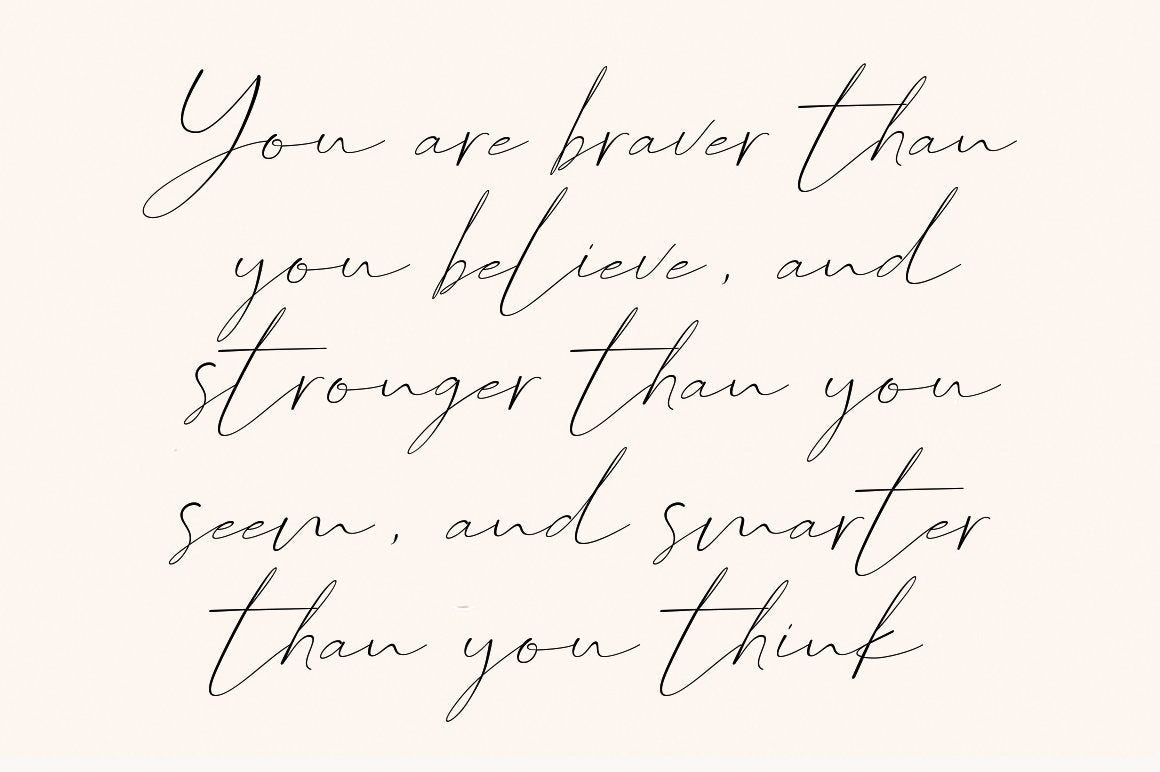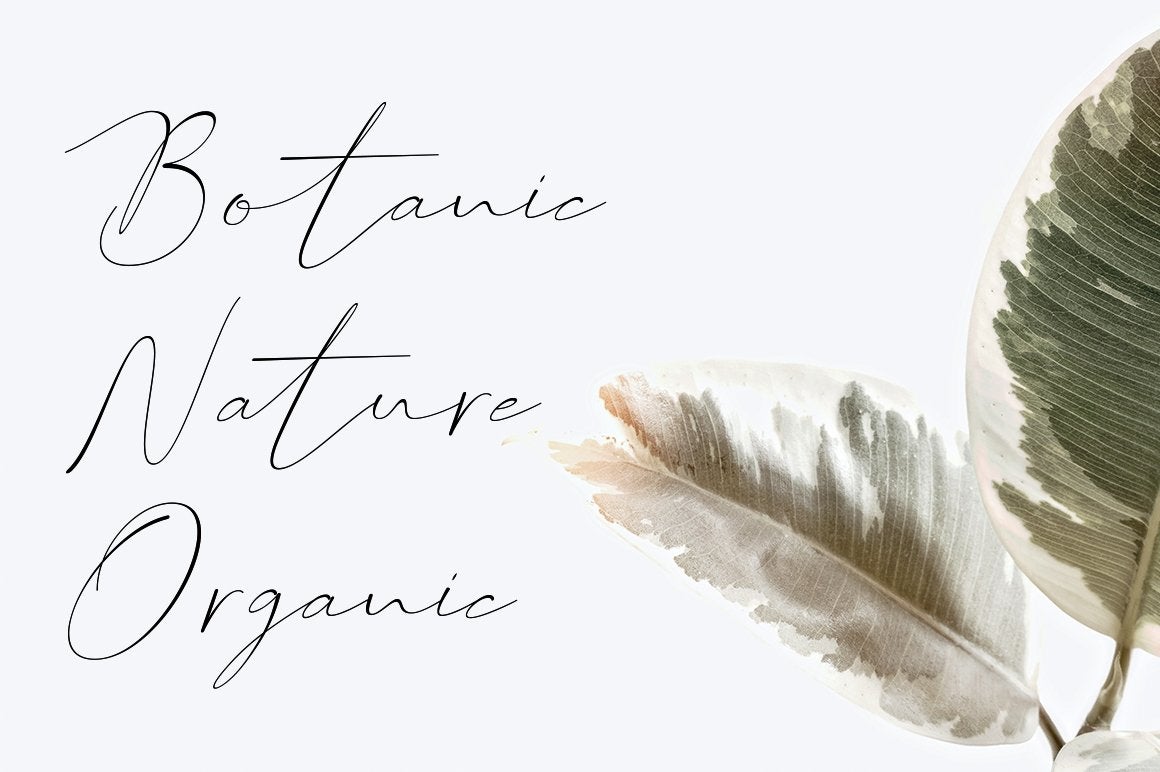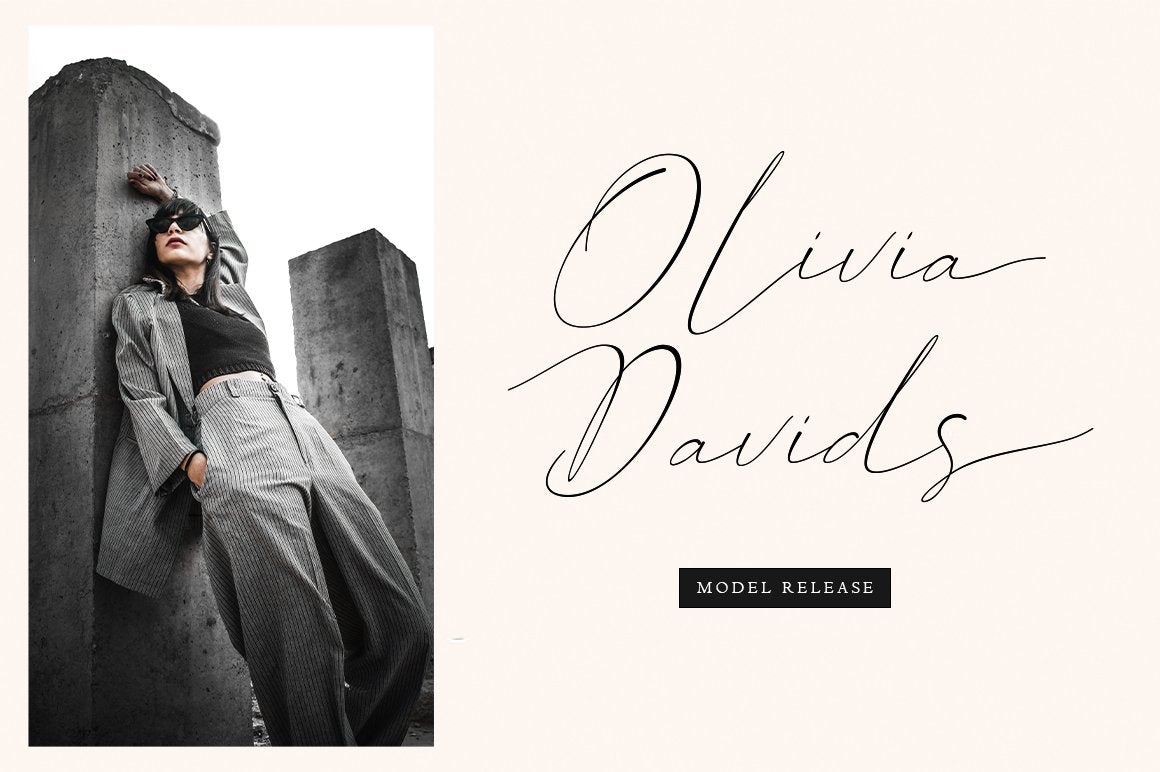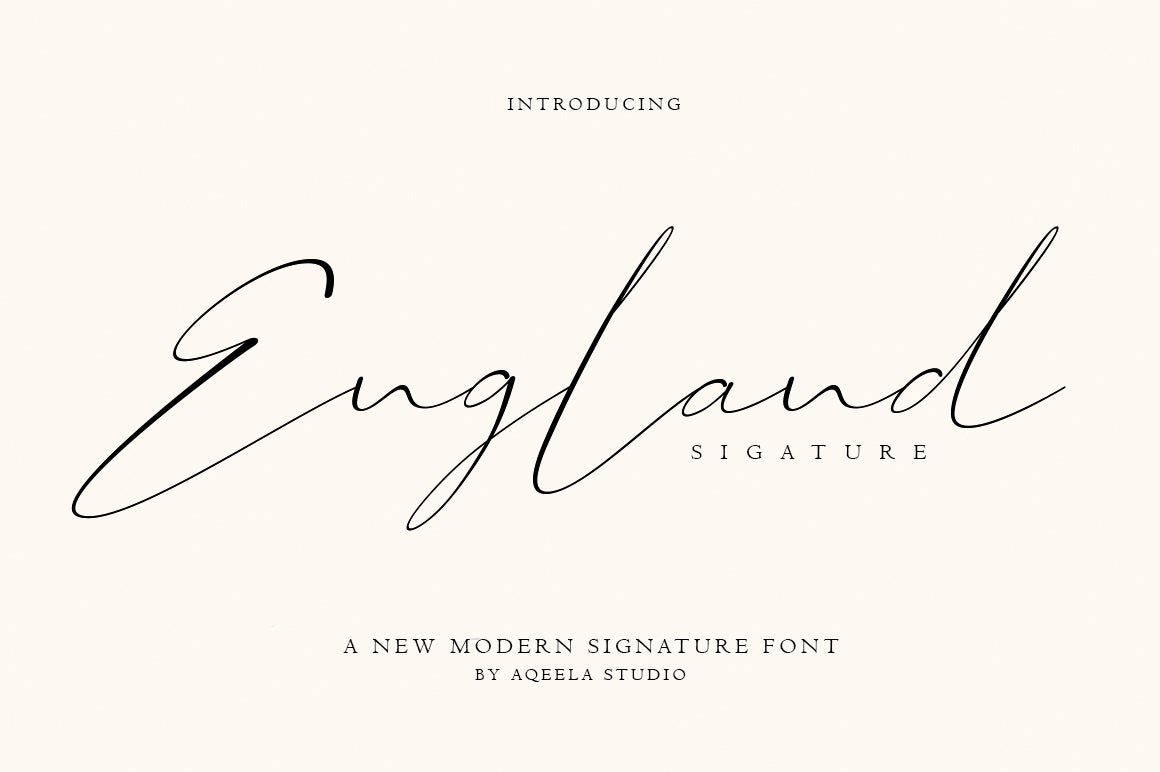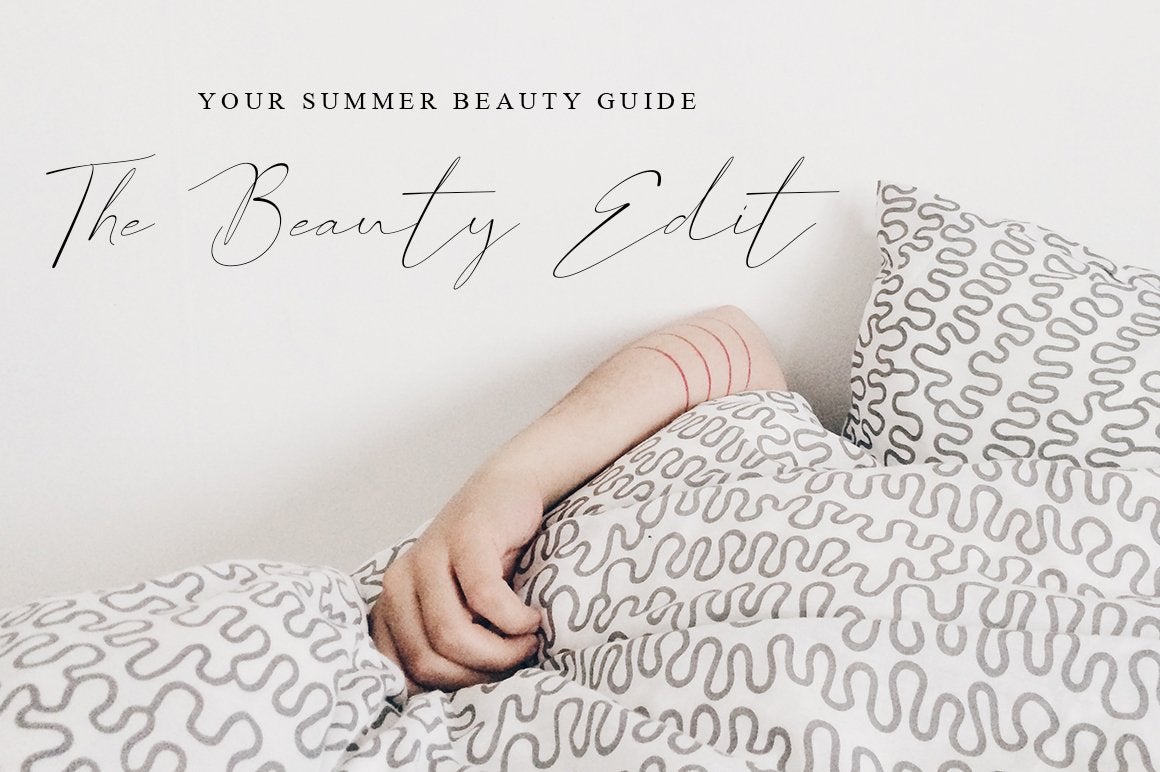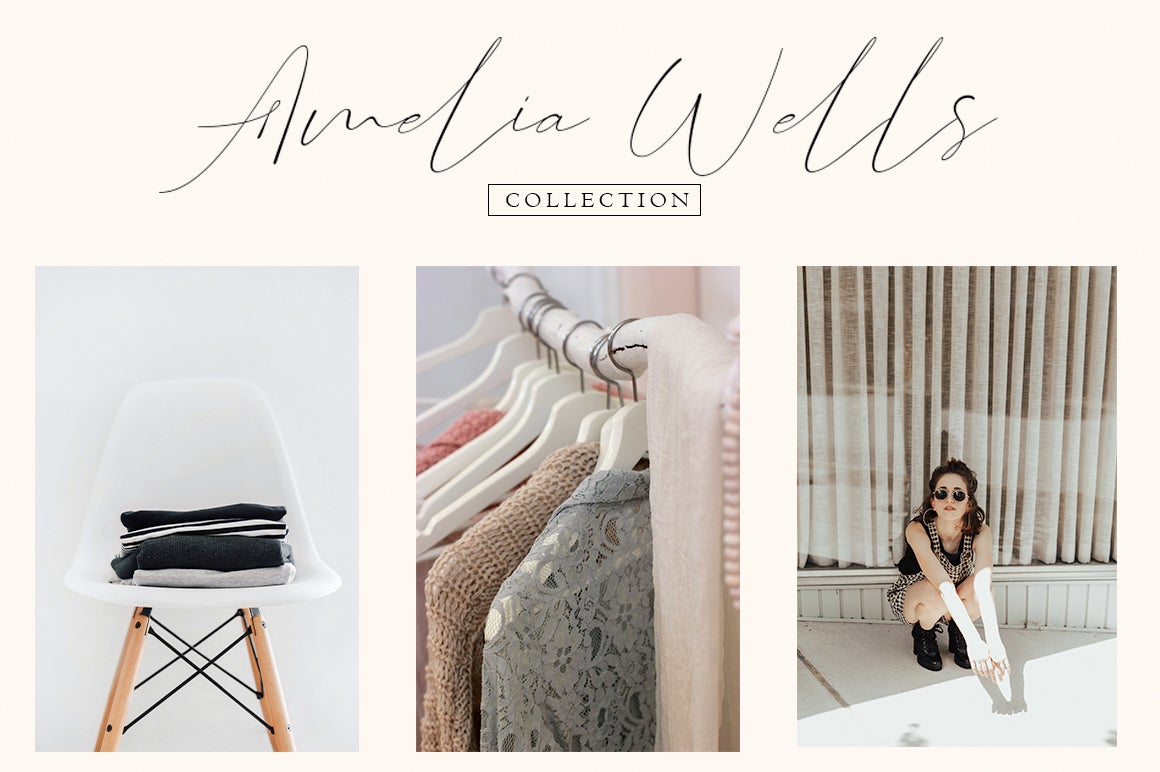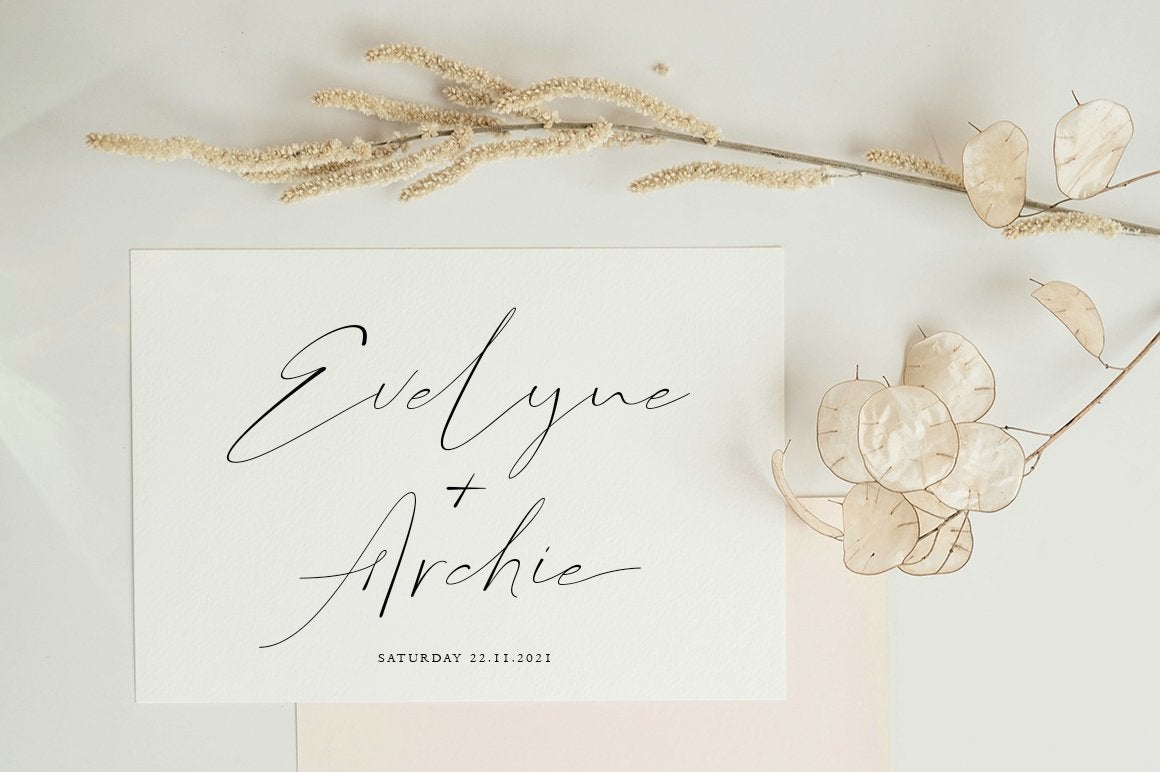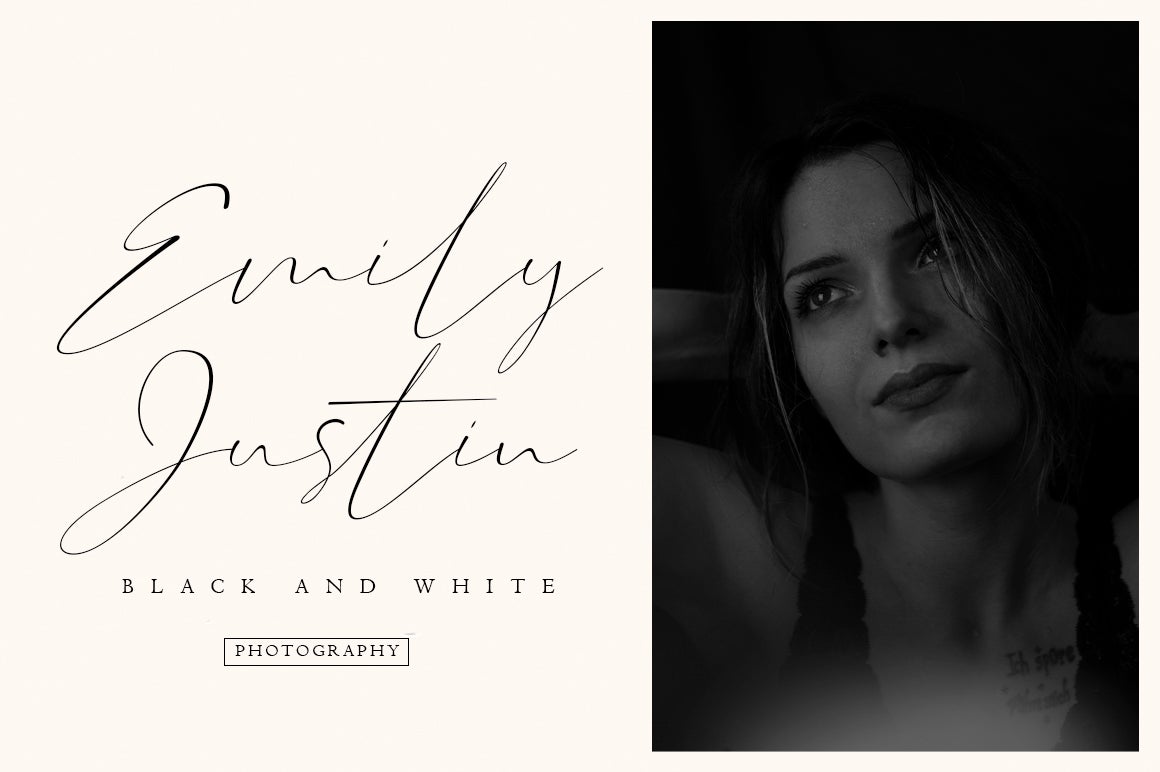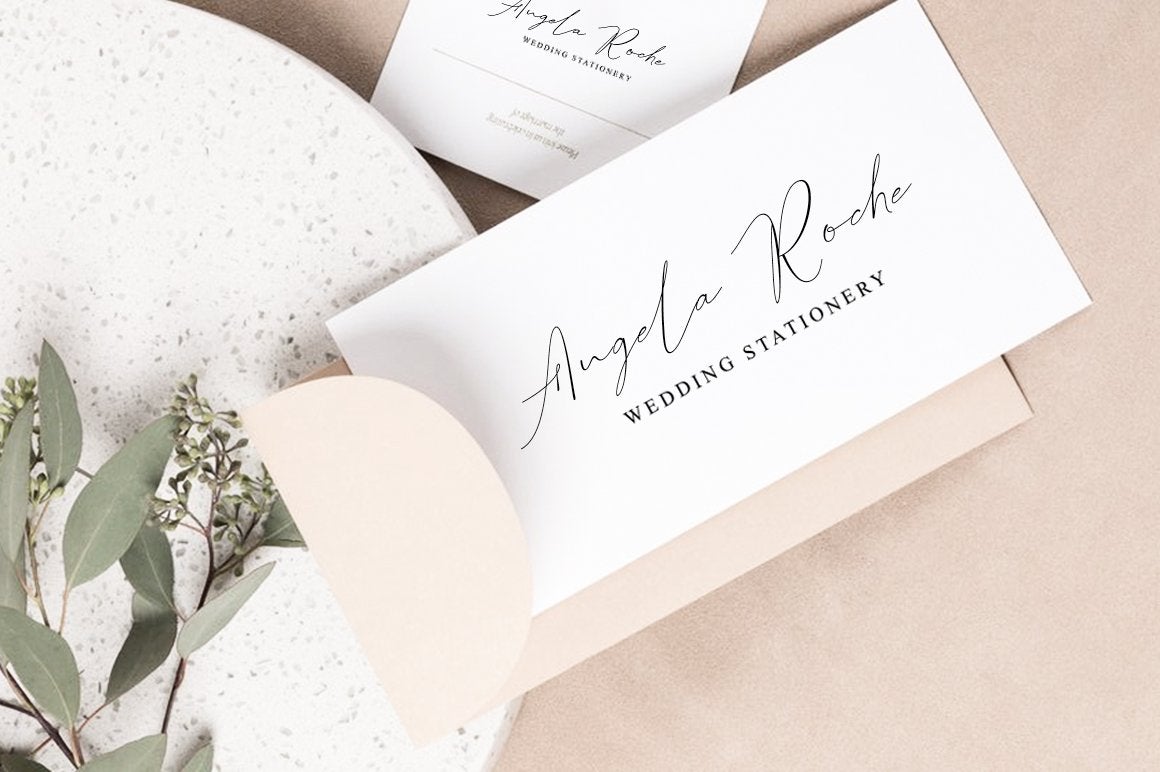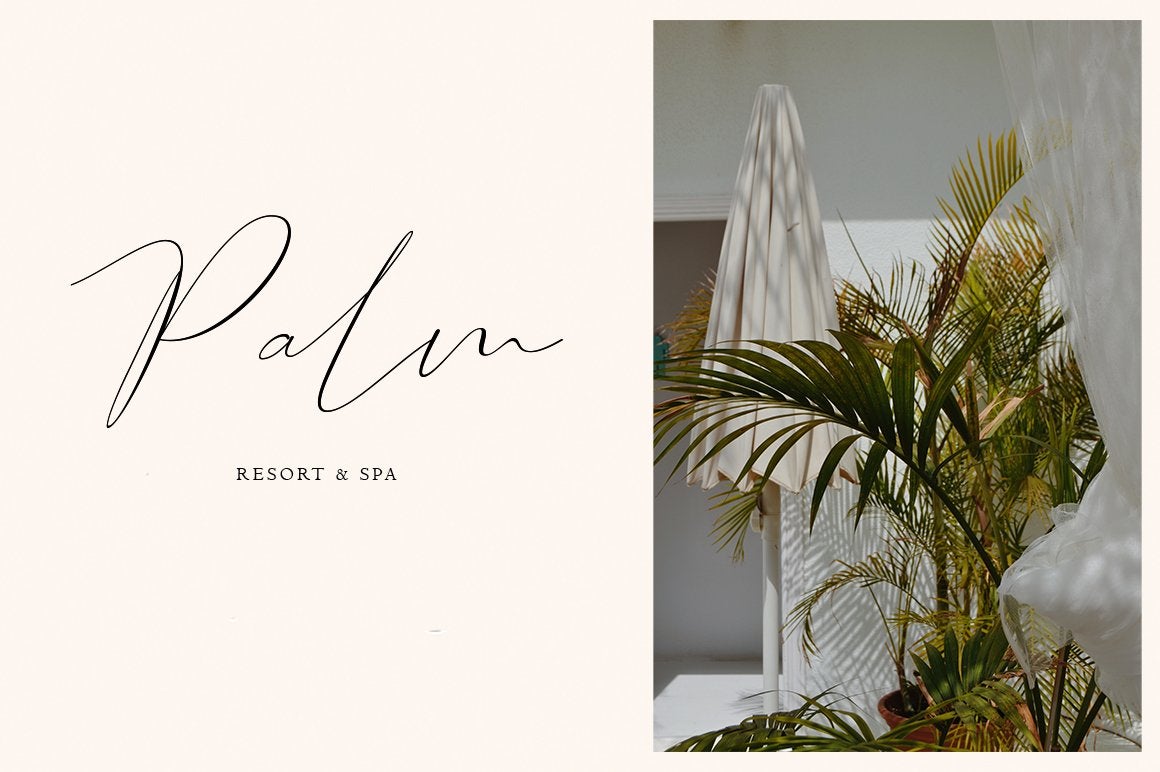
England Signature
About England Signature
England is a beautiful signature font. It has a fresh, modern and natural handwritten style that will add a distinctive touch to your perfect designs. This font is perfect for branding, as it complements it with several alternatives that allow you to make it a feminine and masculine logo, as well as a few markings to add rigidity to the signature, for a bond that accentuates the natural feel of the handwriting.